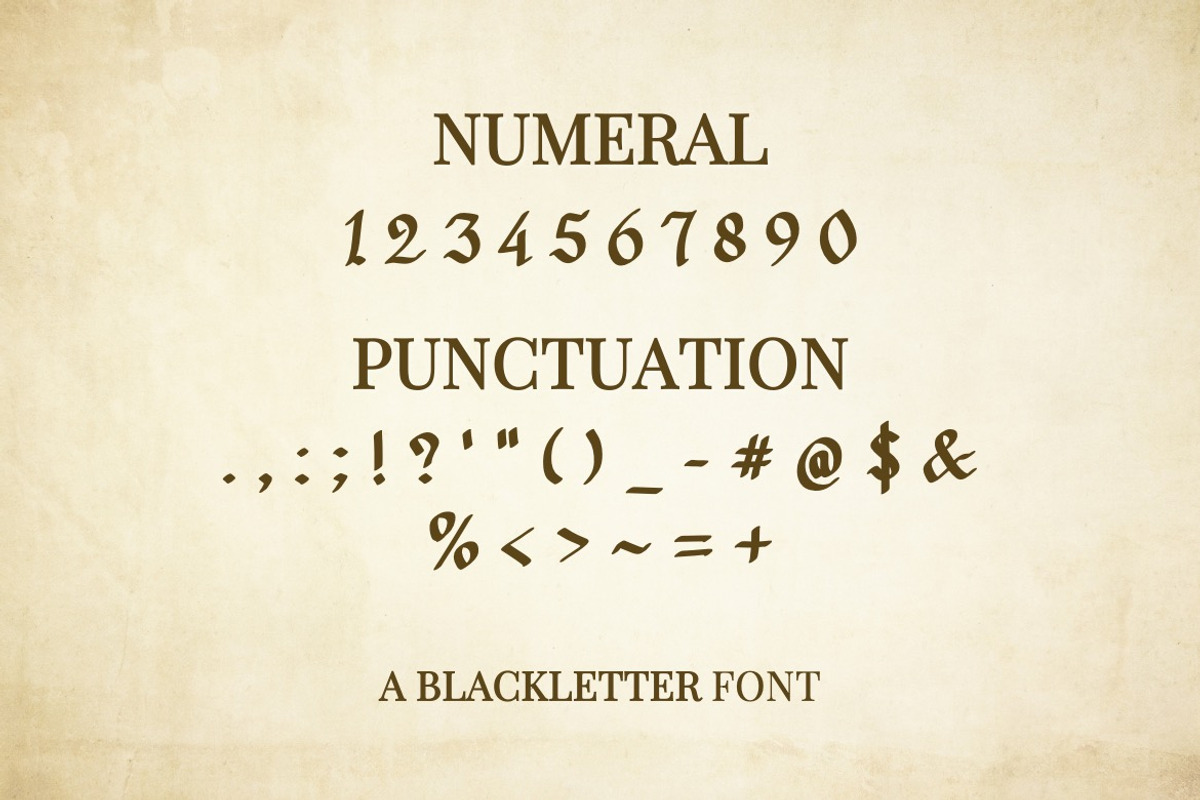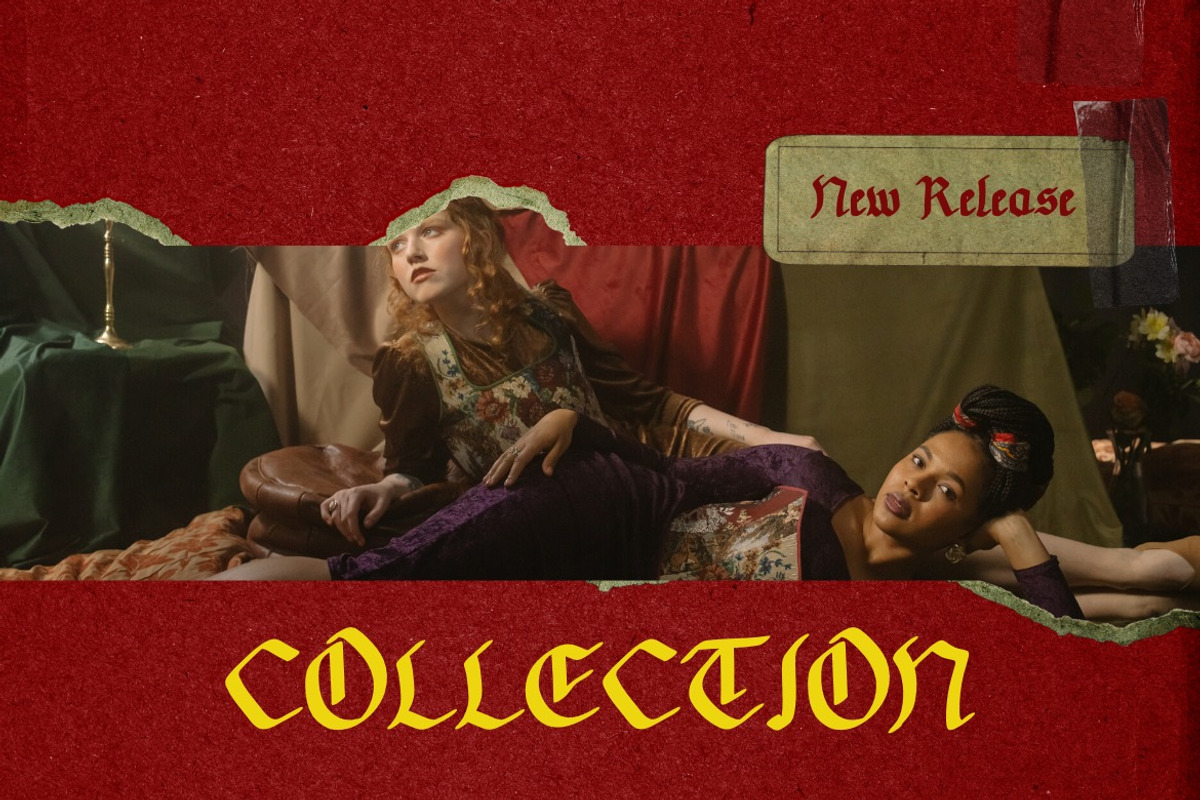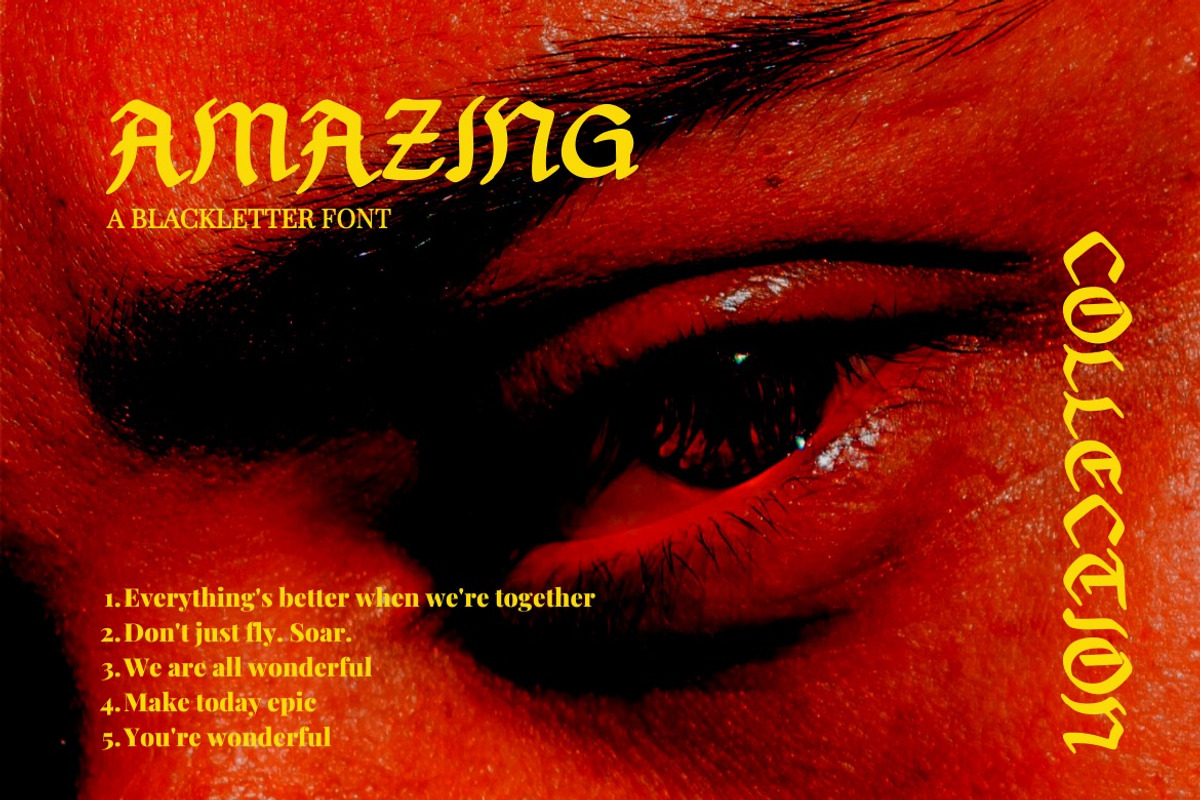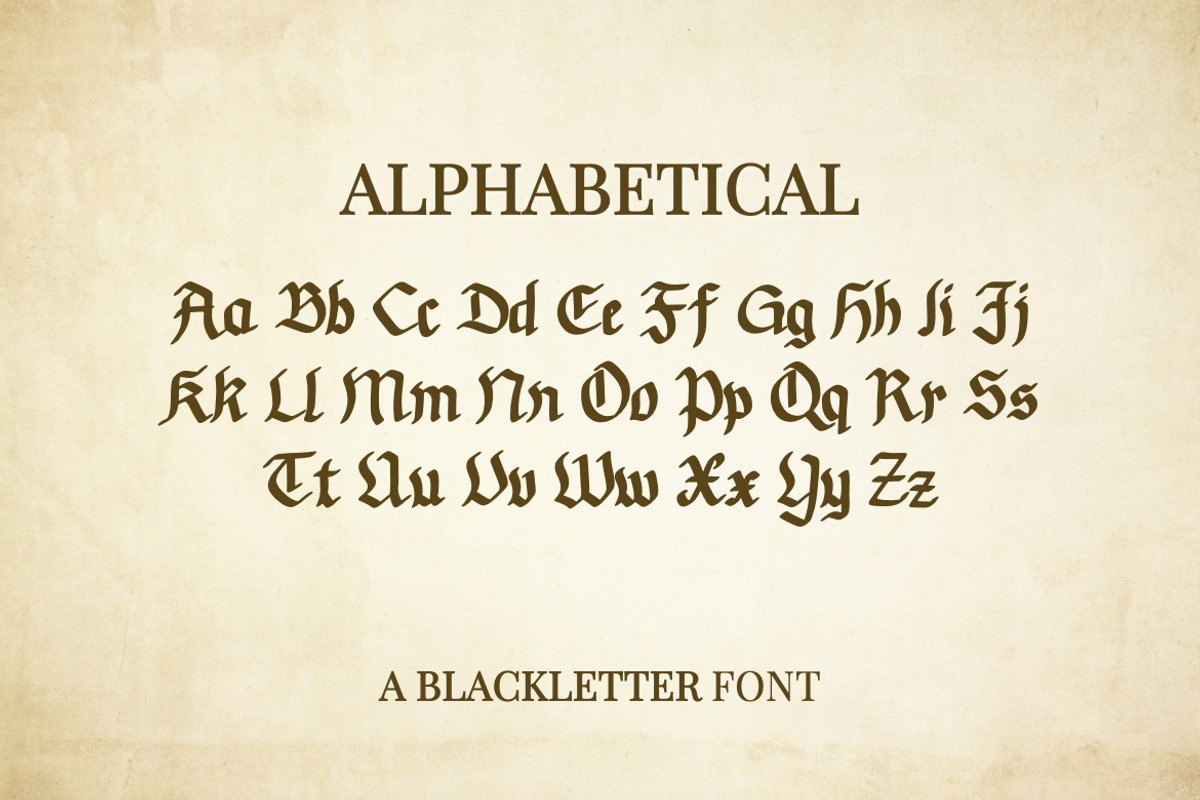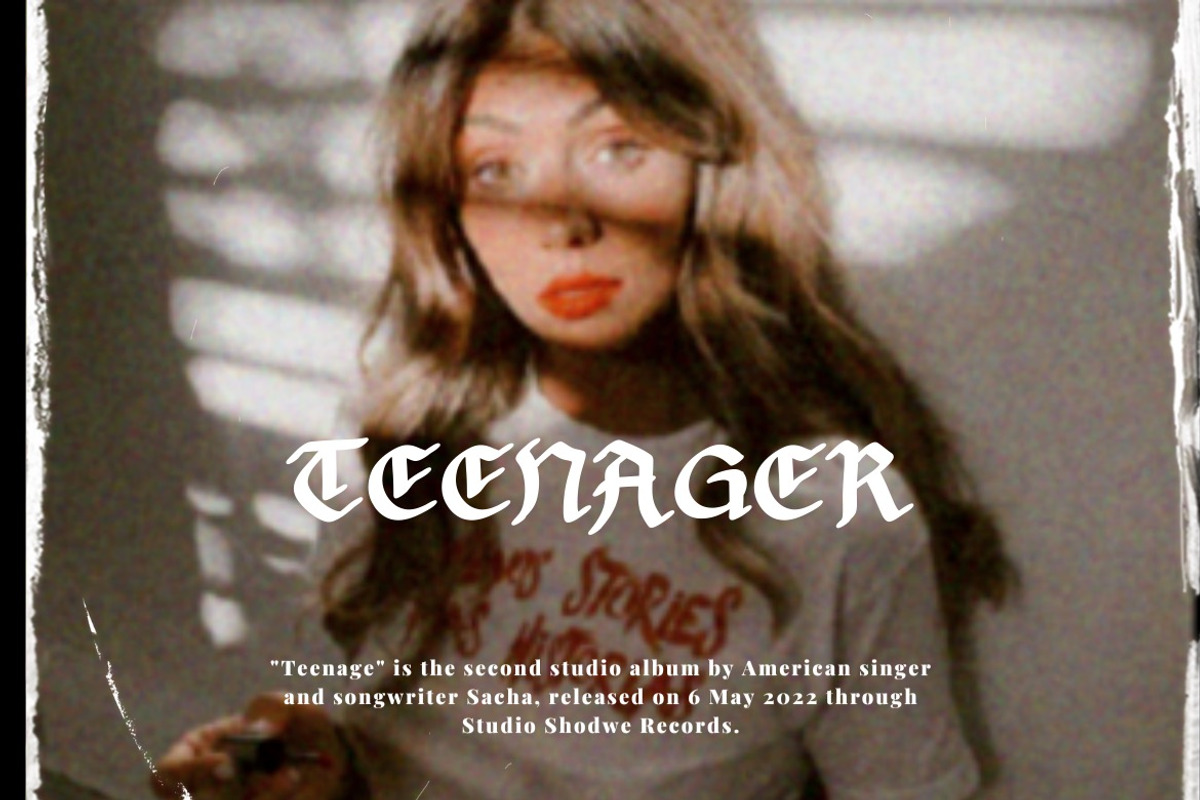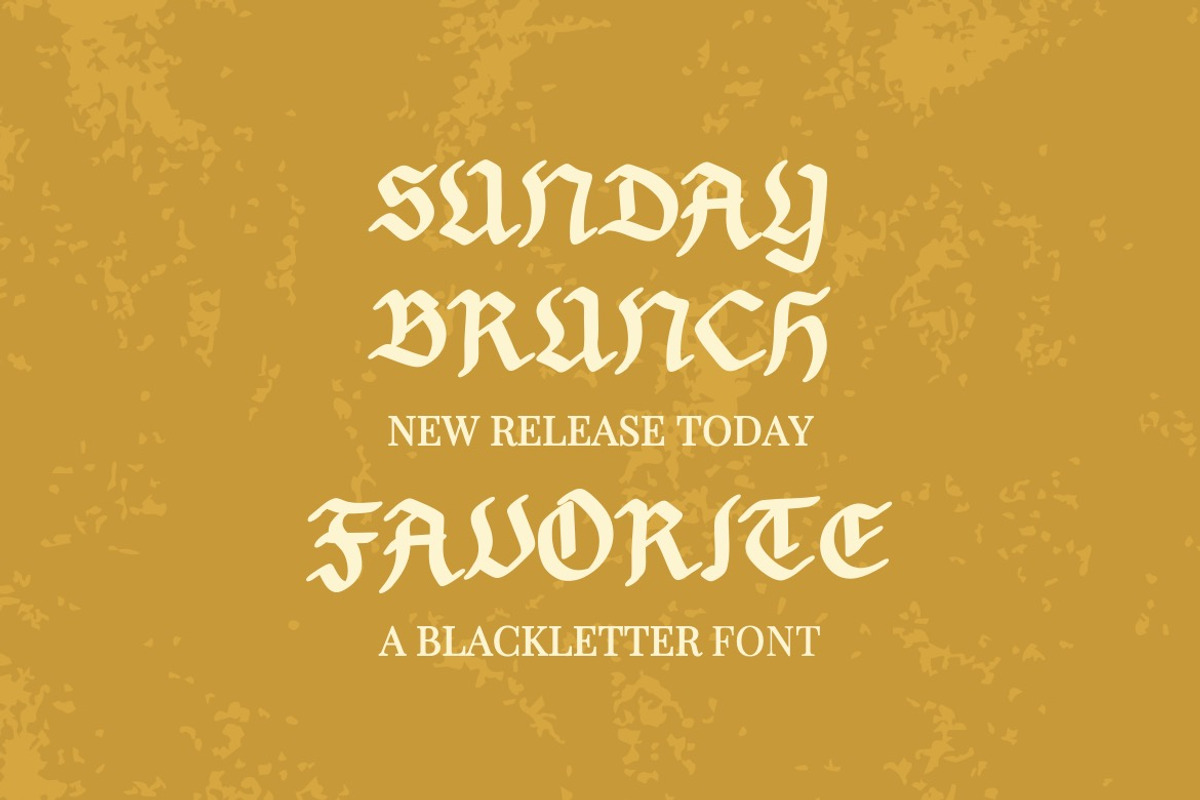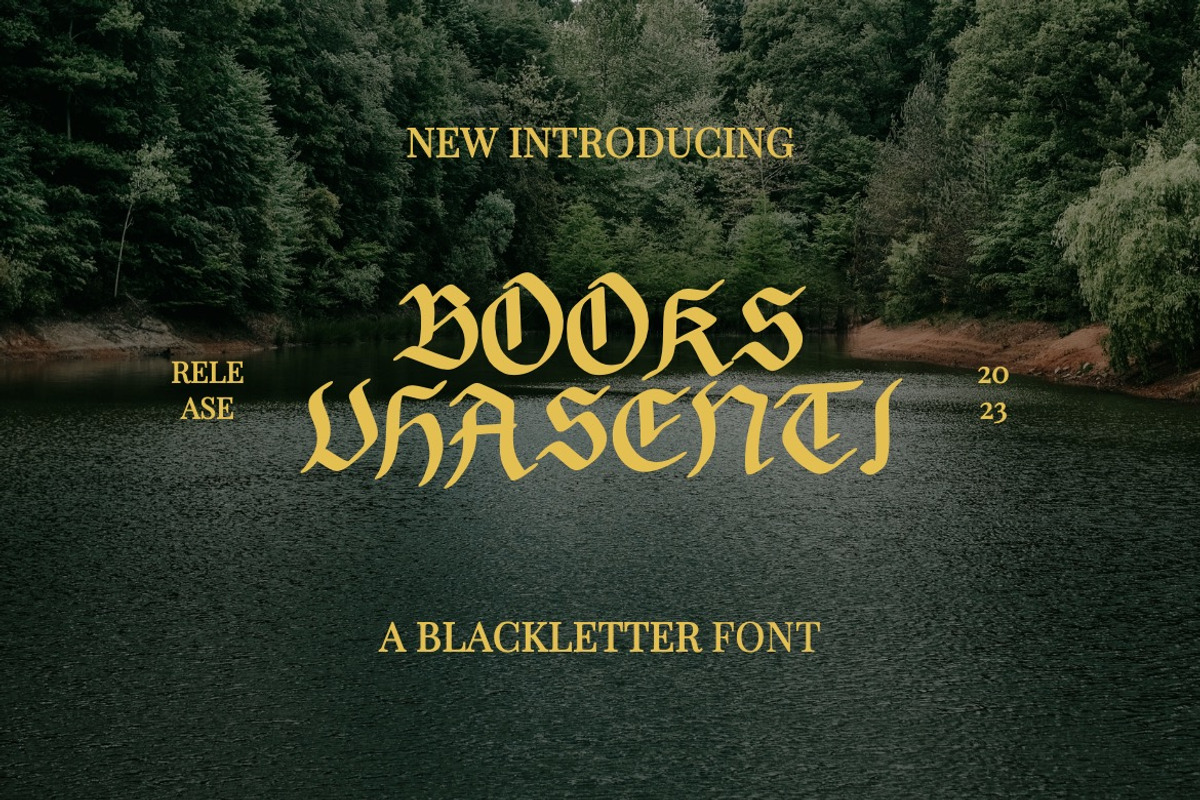
Books Vhasenti - Blackletter Font
Introducing Books Vhasenti - Blackletter Font
Books Vhasenti - Blackletter Font is a bold blackletter fraktur display font that merges traditional Gothic aesthetics with modern impact. Its intricate letterforms feature sharp angles, dramatic strokes, and striking contrasts, embodying strength, authority, and historical charm. The bold weight enhances its commanding presence, making it ideal for designs that demand attention and sophistication.